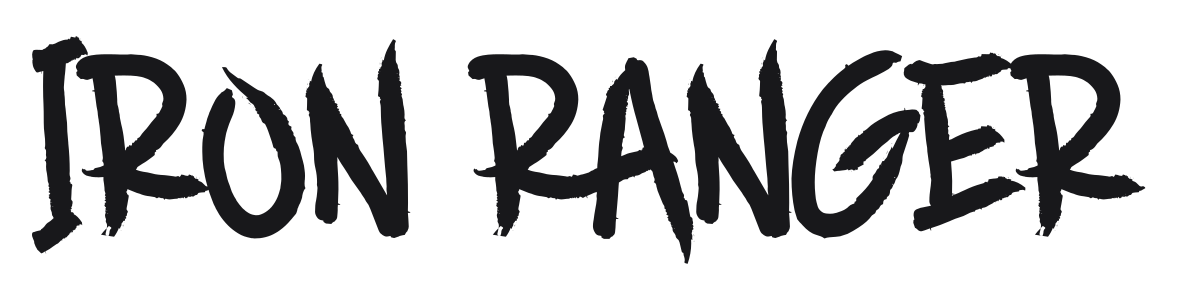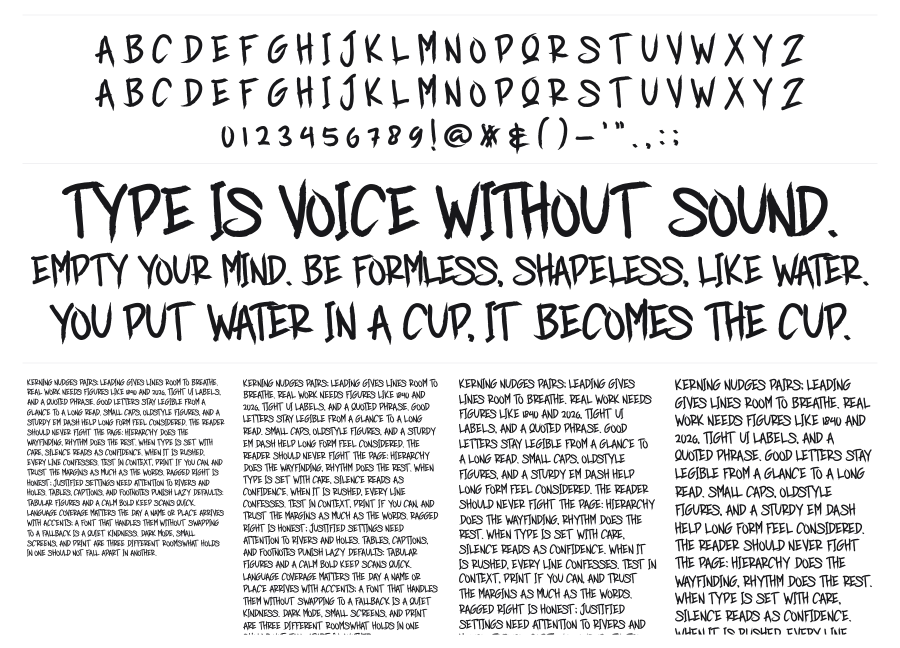
Iron Ranger
Iron Ranger is a heavy brush display font with bold, frayed strokes and a deliberately rough, handmade character. The irregular edges and expressive stroke variation give it a raw, grunge energy that reads instantly at large sizes. It suits posters, album covers, streetwear branding, and anything that needs attitude.